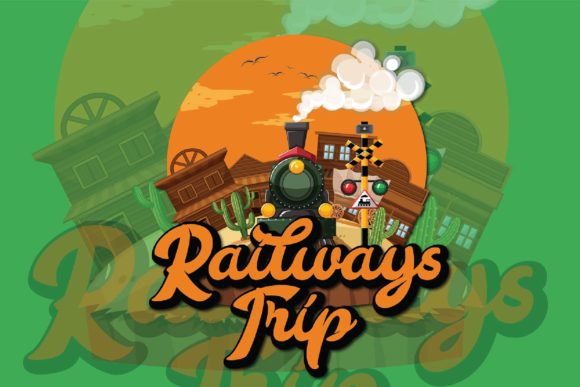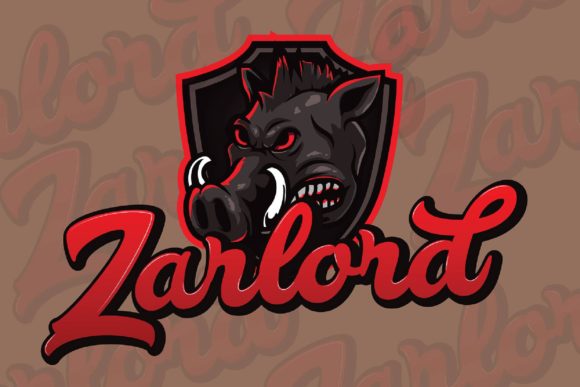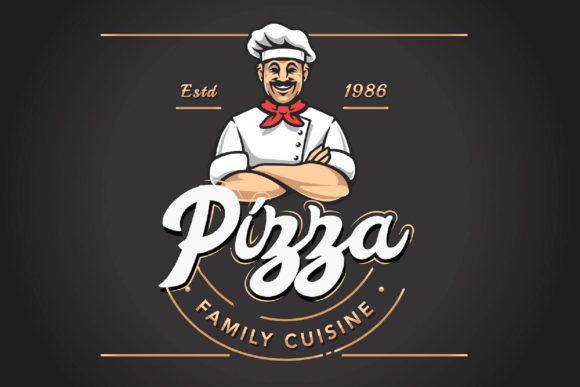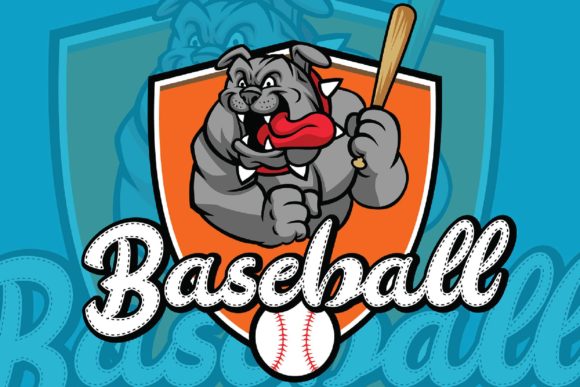
Aloha Font: Elevate Your Designs with a Retro Handwritten Twist
Are you tired of using the same old fonts in your design projects? Do you want to add a touch of personality and whimsy to your creations? Look no further than the Aloha font, a retro handwritten font that’s sure to make your designs stand out from the crowd.
What is Aloha Font?
Aloha is a unique and charming font that’s inspired by the carefree spirit of the 1950s and 60s. With its flowing, cursive script and playful flair, this font is perfect for designers and crafters who want to add a touch of nostalgia and fun to their work.
Aloha font is a handwritten font with an extraordinary feel. Its distinctive lettering style is characterized by bold lines, curvaceous strokes, and a dash of playfulness. Whether you’re working on a logo, a poster, a greeting card, or any other design project, Aloha font is sure to bring a smile to your audience’s faces.
Key Features of Aloha Font
- Retro Handwritten Style: Aloha font boasts a classic, retro look that’s reminiscent of the good old days. Its handwritten style gives it a personal and friendly feel that’s hard to find in modern fonts.
- Extraordinary Feel: With its unique blend of bold and delicate strokes, Aloha font has an extraordinary feel that’s sure to capture attention.
- Playful and Whimsical: This font is perfect for designers who want to add a touch of playfulness and whimsy to their work. It’s ideal for projects that require a lighthearted and carefree vibe.
- Versatile: Aloha font is versatile and can be used in a wide range of design projects, from logos and posters to greeting cards and social media graphics.
How to Use Aloha Font in Your Design Projects
Aloha font is easy to use and can be incorporated into your design projects in a variety of ways. Here are a few ideas to get you started:
- Logos and Branding: Use Aloha font to create a unique and memorable logo for your business or brand. Its retro style and playful feel make it perfect for companies that want to stand out from the crowd.
- Posters and Flyers: Add a touch of nostalgia and fun to your posters and flyers with Aloha font. Its bold lines and curvaceous strokes make it perfect for headlines and titles.
- Greeting Cards and Invitations: Use Aloha font to create personalized greeting cards and invitations that are sure to delight your friends and family.
- Social Media Graphics: Add a touch of personality to your social media graphics with Aloha font. Its playful feel and retro style make it perfect for creating engaging and shareable content.
Tips and Tricks for Working with Aloha Font
Here are a few tips and tricks to help you get the most out of Aloha font:
- Experiment with Colors: Aloha font looks great in a variety of colors, from bold and bright to soft and pastel. Experiment with different colors to find the perfect look for your design project.
- Play with Pairings: Aloha font pairs well with a variety of other fonts, from modern sans-serifs to elegant scripts. Experiment with different pairings to find the perfect combination for your design project.
- Don’t be Afraid to Get Creative: Aloha font is a versatile font that can be used in a wide range of design projects. Don’t be afraid to get creative and try new things – it’s a great way to discover new and interesting design possibilities.
Aloha font is a unique and charming font that’s perfect for designers and crafters who want to add a touch of personality and whimsy to their work. With its retro handwritten style, extraordinary feel, and playful flair, this font is sure to make your designs stand out from the crowd.
Whether you’re working on a logo, a poster, a greeting card, or any other design project, Aloha font is a great choice. So why not give it a try and see the amazing things you can create?